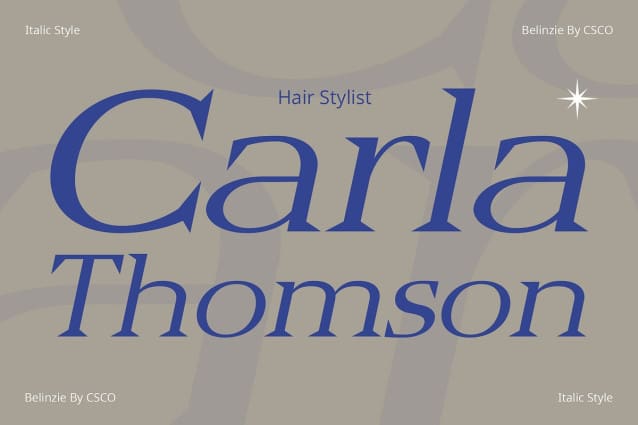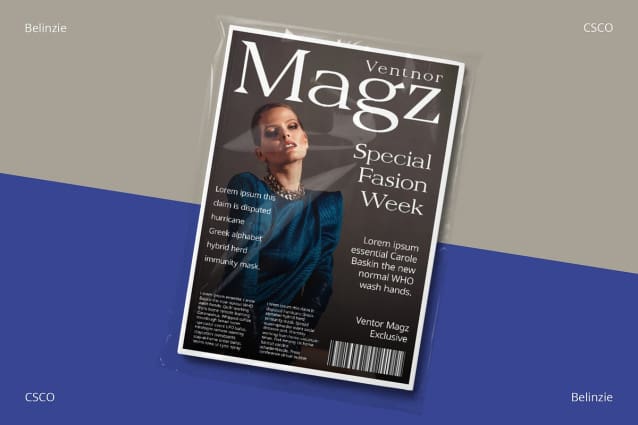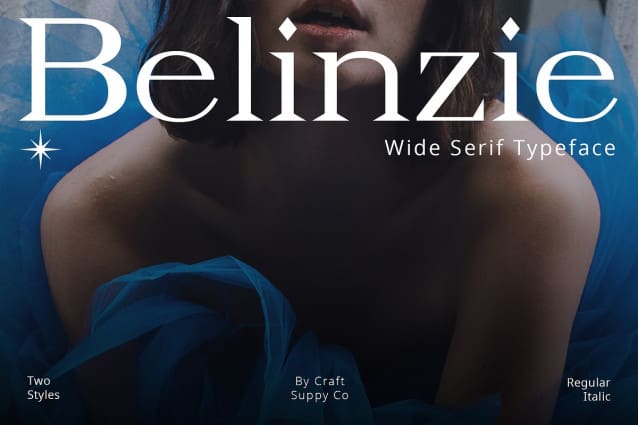
Belinzie Font
Belinzie Font: A Symphony of Elegance and Professionalism. Elegance Personified Meet Belinzie, a serif typeface that exudes an air of elegance, perfect for elevating projects in fashion, editorial, and beyond.
Aesthetic Brilliance Belinzie captivates with its refined strokes and precise details, showcasing a meticulous design that resonates with aesthetic brilliance.
Versatile Professionalism Tailored for professionals, this font seamlessly transitions from high-end fashion layouts to sophisticated editorial designs, embodying versatile professionalism.
Timeless Appeal With a timeless appeal, Belinzie stands the test of trends. Its classic serifs and clean lines bring a touch of sophistication to any visual narrative.
Unrivaled Precision Every curve and serif of Belinzie Font is crafted with unrivaled precision, ensuring a level of detail that speaks to the font’s commitment to excellence.
Elevate Your Designs Whether crafting a high-fashion magazine spread or a corporate annual report, Belinzie offers the flexibility to elevate your designs, adding a touch of timeless refinement.
Harmony in Typography In the symphony of typography, Belinzie strikes a harmonious chord, seamlessly blending elegance and professionalism in every character.
Conclusion Belinzie Font isn’t just a typeface; it’s a symphony of elegance and professionalism. Elevate your designs with the timeless allure of Belinzie, where every letter is a brushstroke of refined sophistication.